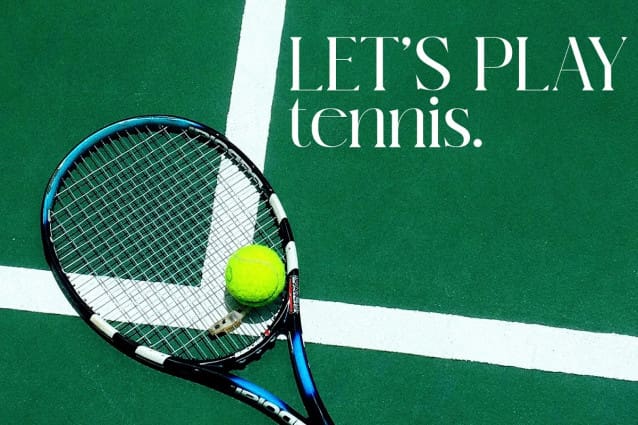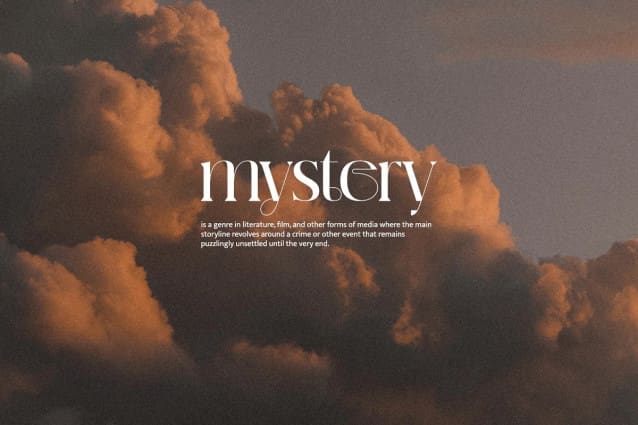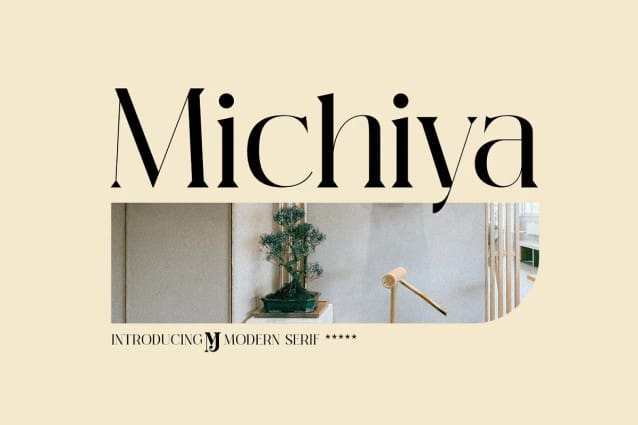
Michiya Font
Michiya Font is a clean and elegant font with a hint of fun. It has many options for different styles and combinations, making it ideal for creating designs such as packaging, logos or title.